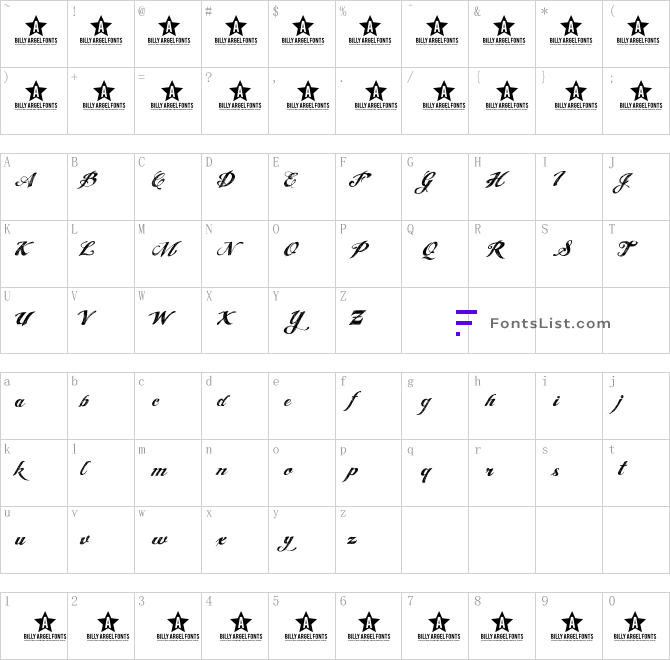
- Font Name:ANGEL TEARS
ANGELTEARS-trial.otf is a very beautiful artistic font, ANGELTEARS-trial.otf is widely used in the design and printing of various books and pictures,ANGELTEARS-trial.otf has a strong visual impact,ANGELTEARS-trial.otf is a commonly used font in newspapers, magazines and books, and is used in posters, e-commerce Poster design, store design, logo design, font design and other fields.ANGELTEARS-trial.